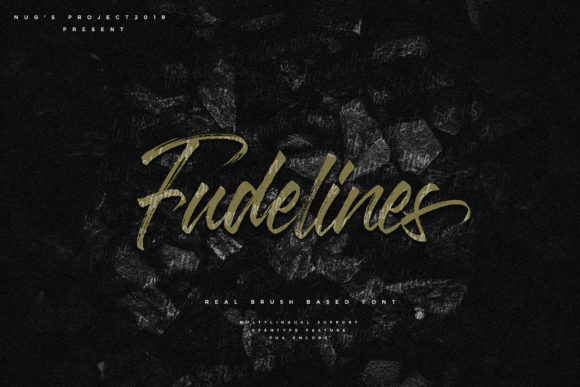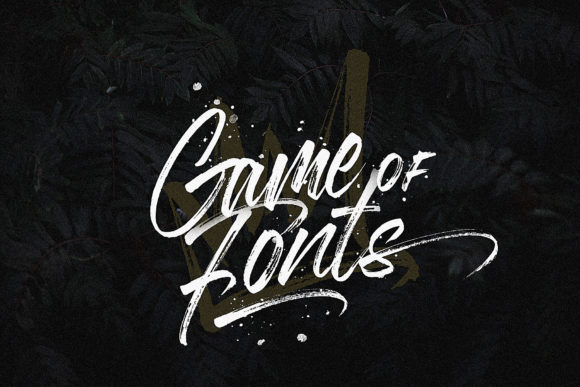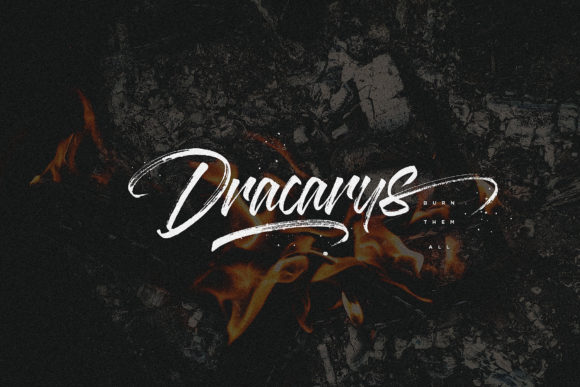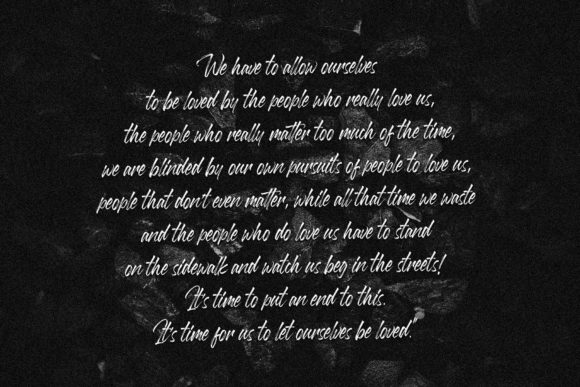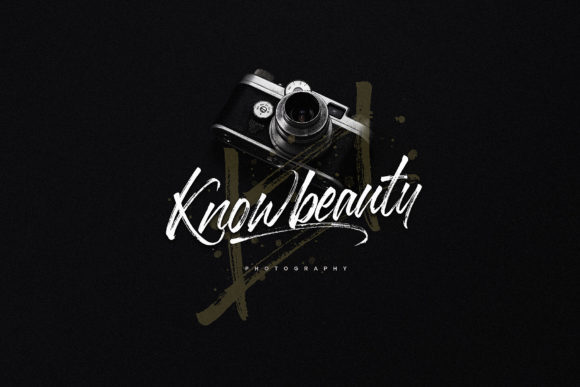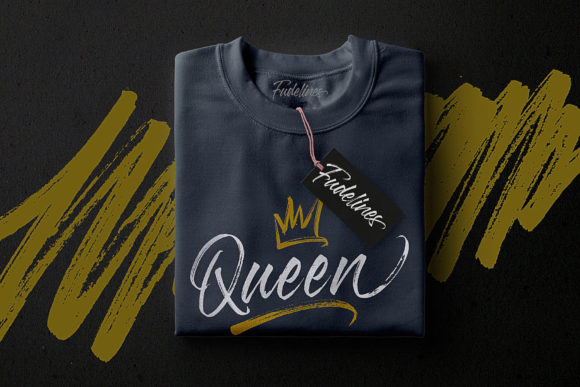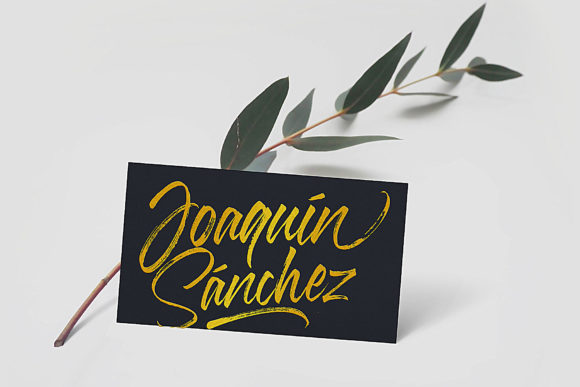
Fudeline Font
About Fudeline Font
Showcasing beautiful brushes, Fudeline is a stunning and contemporary handwritten font. It will add a bold and charming feel to any design idea.